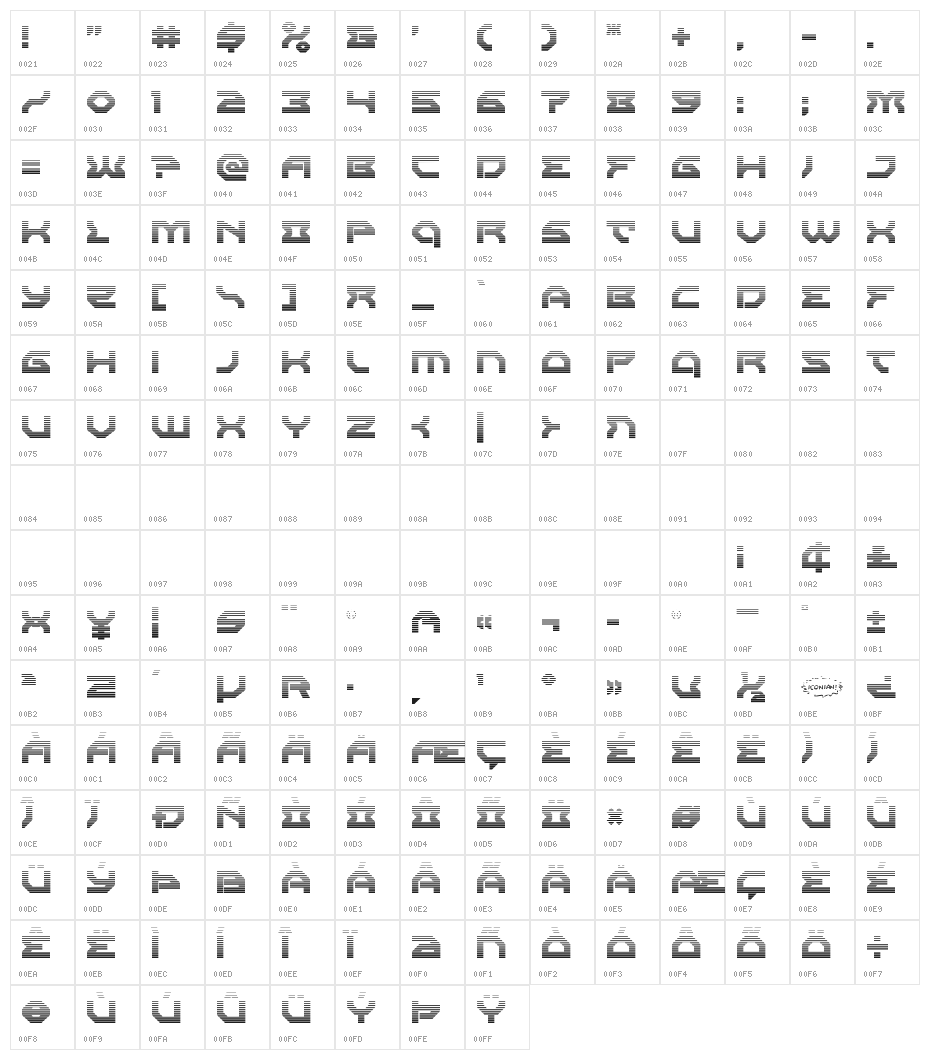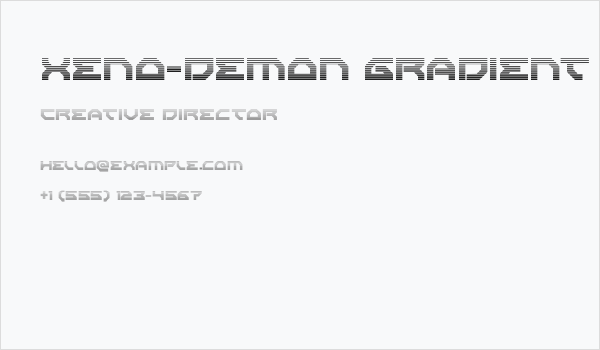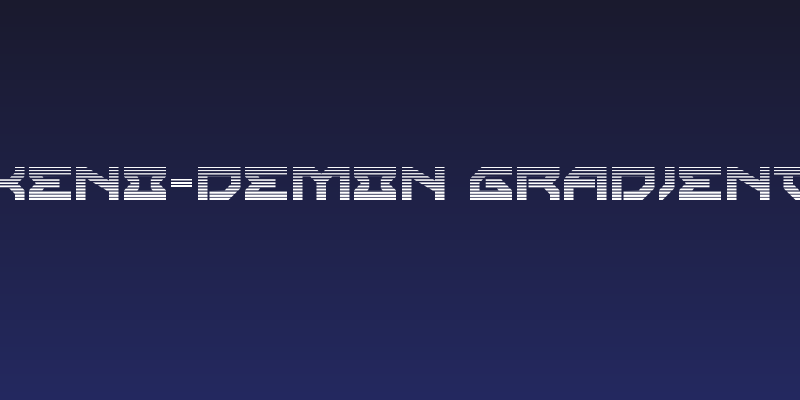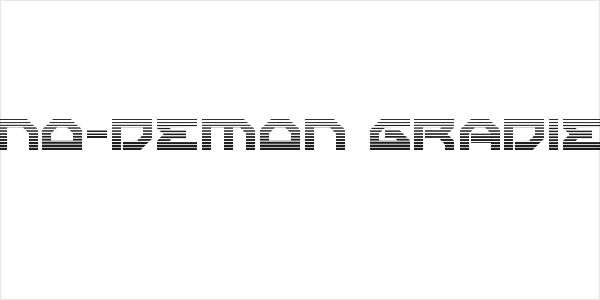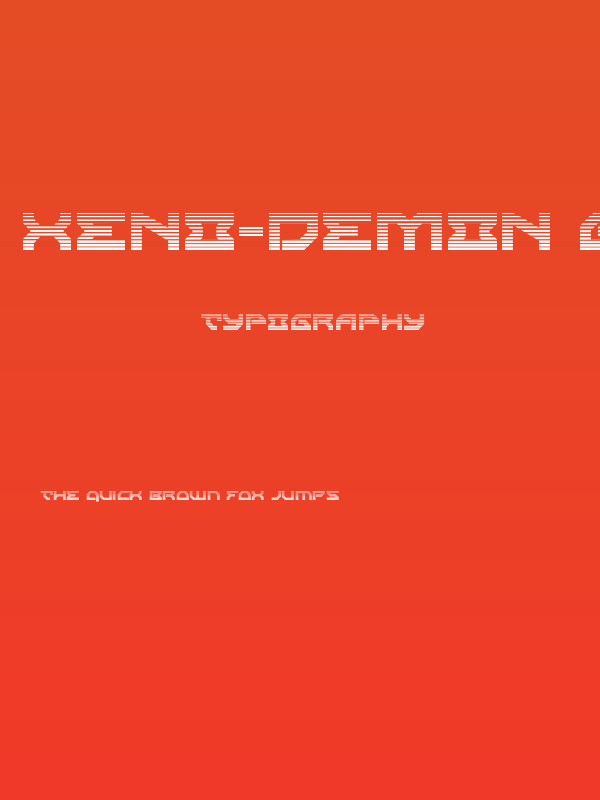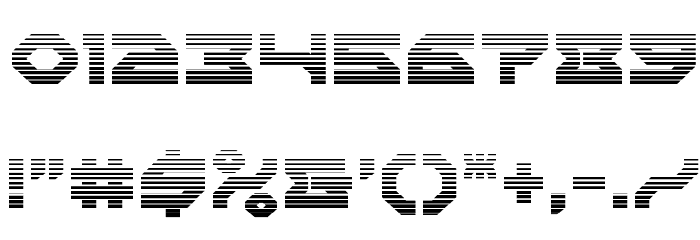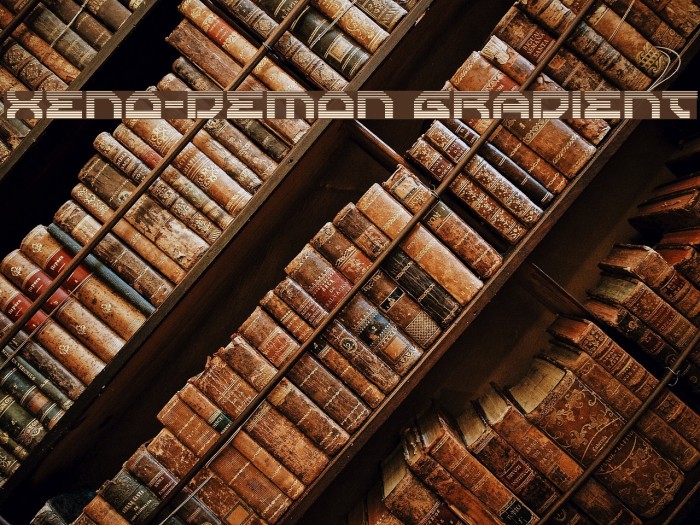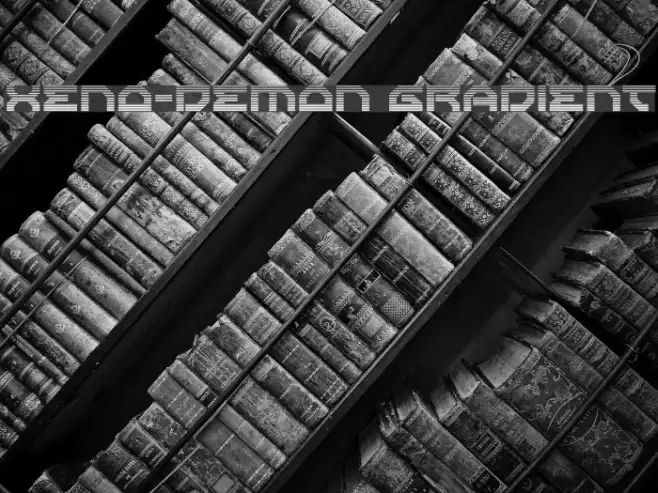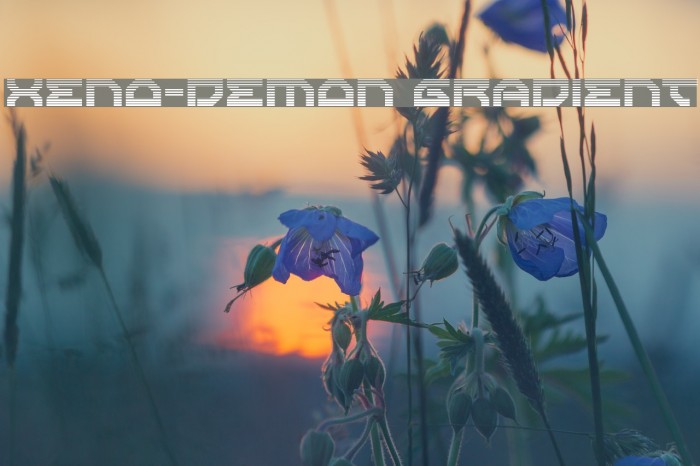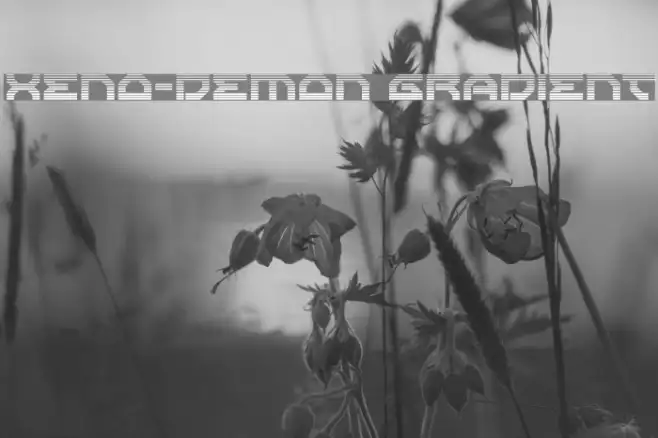
Xeno-Demon Gradient Font
Xeno-Demon Gradient Description
This font features a futuristic and digital aesthetic, characterized by its unique horizontal line pattern that creates a gradient effect across each character. The design is bold and striking, with a geometric structure that emphasizes sharp angles and clean lines. Each letter and number is composed of parallel lines that vary in thickness, giving the font a dynamic and layered appearance. The special characters are equally stylized, maintaining the overall theme of modernity and technological influence. This font is ideal for projects that require a strong visual impact and a contemporary feel.
| Proposed Projects | Ideal for tech-related branding, video game titles, sci-fi movie posters, and digital art projects. |